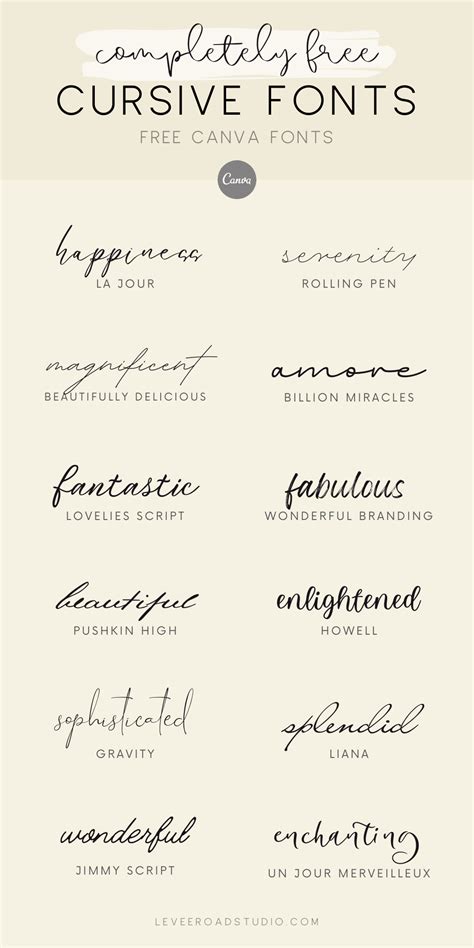
Transform Your Text with Our Free Cursive Font Changer: Add a Touch of Elegance to Your Writing!
Want to add a touch of elegance to your writing? Look no further! Our free cursive font changer will transform your text into a work of art. Say goodbye to standard, boring fonts and hello to sophisticated cursive styles.
Did you know that research has shown that using cursive handwriting can improve cognitive development, neural connectivity, and information processing? Not only will our cursive font changer make your writing look great, it may even enhance your brain function!
But why stop at just improving yourself when you can impress others too? With our font changer, you'll be the envy of all your friends and colleagues. Imagine dazzling them with beautifully written invitations, emails, or even handwritten notes.
So don't settle for plain text any longer. Transform your writing with our free cursive font changer and add a touch of sophistication to your life!
If you are tired of using the same old boring fonts in your documents, then it's time to try something new. Our Free Cursive Font Changer can transform your text into elegant and stylish cursive fonts that will make your writing stand out. In this article, we've compiled a comparison of our font changer with other similar services available online.
What is a Cursive Font Changer?
A Cursive Font Changer is an online tool that allows you to convert your regular text into cursive fonts. It takes only a few seconds to copy and paste your text into the tool, and you'll instantly have a range of cursive fonts to choose from. This tool is especially useful for those who want to add a personal touch to their writing, such as wedding invitations, greeting cards, or personalized gifts.
Opinions on Using Cursive Fonts
Some people believe that using cursive fonts makes the text harder to read, while others argue that it adds a touch of elegance and sophistication. Ultimately, it comes down to personal preference and the context in which the text is being used. Cursive fonts can be great for formal occasions, such as weddings or graduations, but may not be appropriate for more casual settings.
Benefits of Using Our Free Cursive Font Changer
Our Free Cursive Font Changer offers a wide range of fonts to choose from, including script, calligraphy, and handwritten styles. The interface is user-friendly and easy to navigate, and users can adjust the font size, color, and spacing to suit their needs. The best part is that the service is completely free, making it accessible to anyone who wants to add a touch of elegance to their writing.
Limitations of Other Font Changers
Some font changers available online may offer limited customization options, such as the ability to change font size or color. Others may only offer a handful of fonts to choose from. Additionally, some font changers may not be compatible with certain browsers or operating systems, which can limit accessibility. These limitations can be frustrating for users who are looking for more flexibility in their font choices.
Using a Free Cursive Font Changer can be a great way to add a personal touch to your writing and make it stand out. Our service offers a range of fonts to choose from, as well as customization options to suit your needs. When compared with other font changers available online, our service stands out for its ease of use and wide range of options. Give our Free Cursive Font Changer a try to transform your text into beautiful cursive fonts today!
People Also Ask about Transform Your Text with Our Free Cursive Font Changer: Add a Touch of Elegance to Your Writing!
- What is a cursive font changer?
- Yes, the cursive font changer is very easy to use. It requires no technical knowledge and is accessible to anyone who wants to add a touch of elegance to their writing.
- The benefits of using a cursive font changer include adding a unique and sophisticated touch to your writing, making your text more visually appealing, and creating a more memorable impression on your readers.